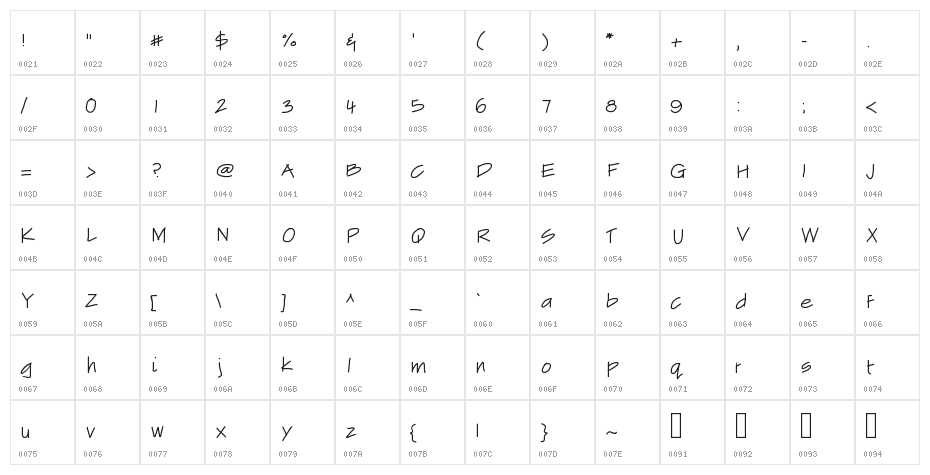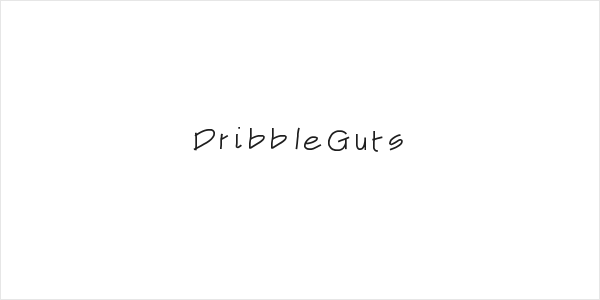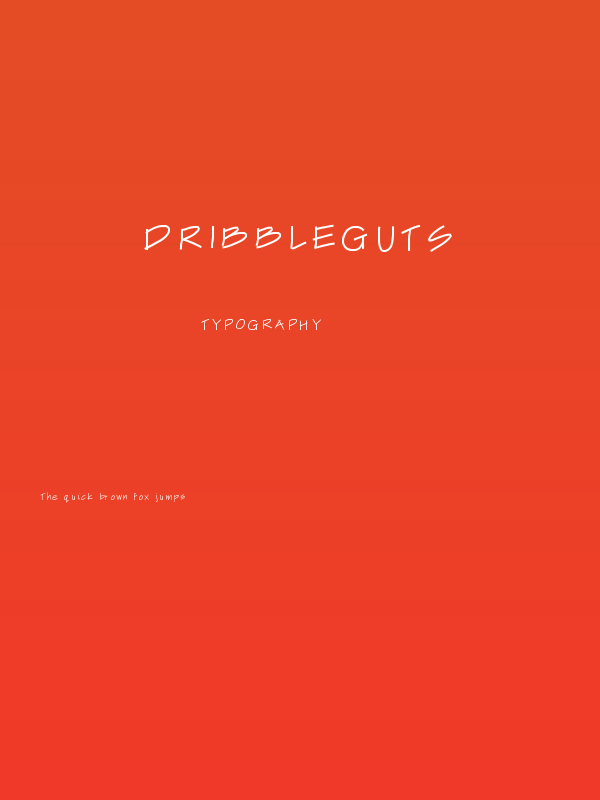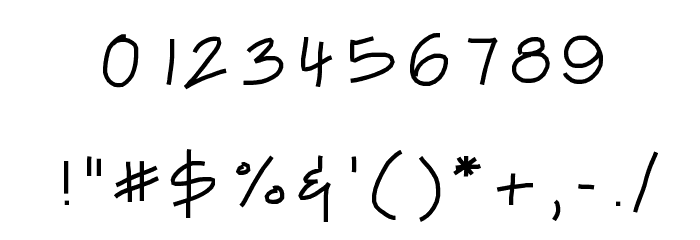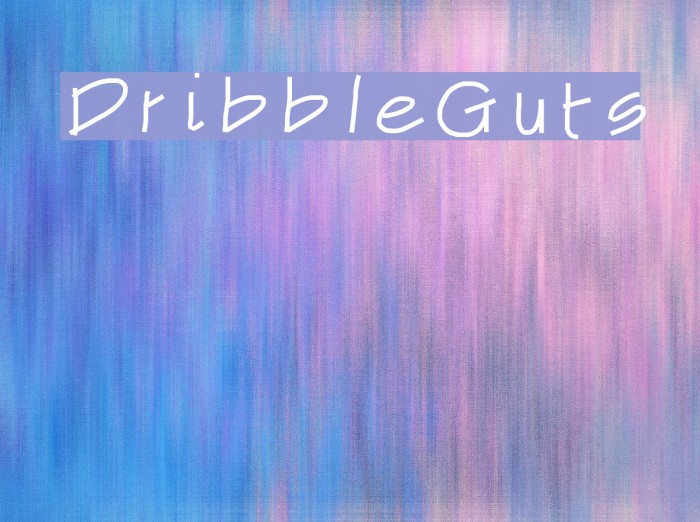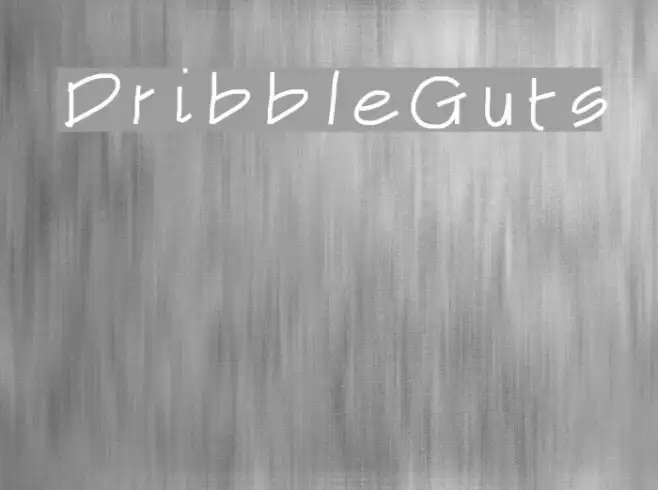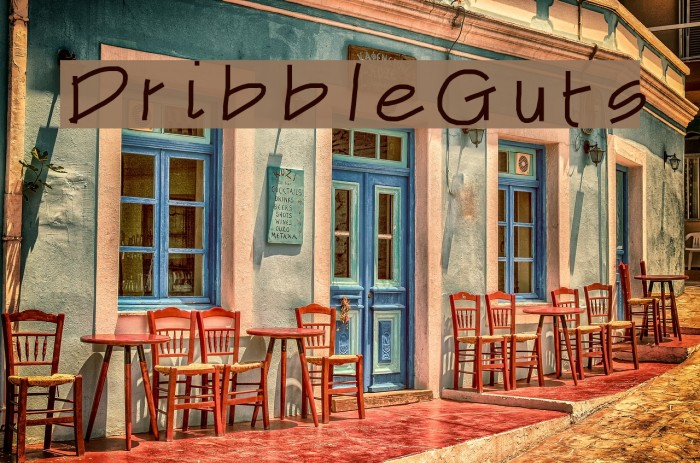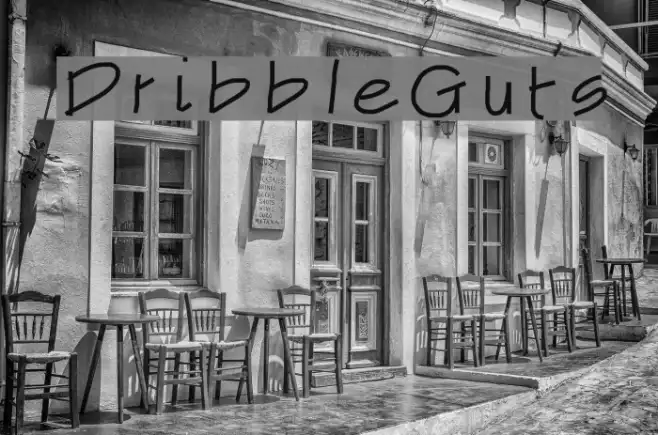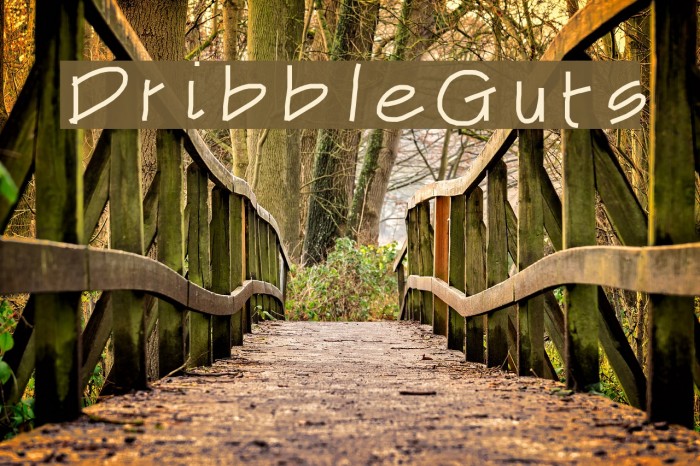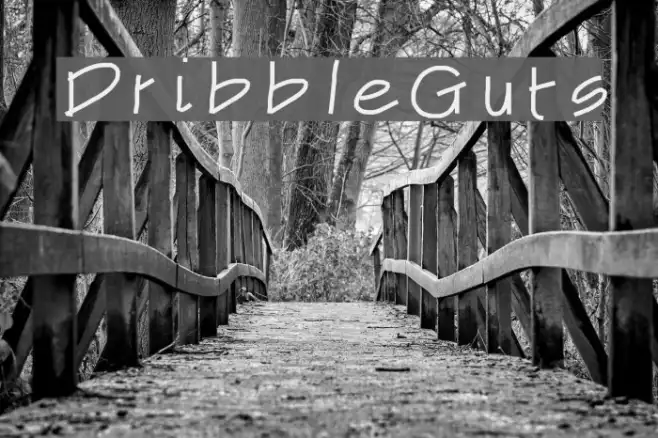
DribbleGuts Font
DribbleGuts Description
This font features a playful and informal handwritten style, characterized by its slightly irregular strokes and casual appearance. The letters have a natural flow, with some variations in height and slant, giving it a personal and approachable feel. The uppercase letters are bold and slightly tilted, while the lowercase letters maintain a consistent baseline with occasional loops and curves. The numerals are clear and legible, matching the overall style of the alphabet. Special characters are included, maintaining the same whimsical and friendly aesthetic. This font is perfect for projects that require a touch of personality and warmth.
DRIBBLEGUTS UPPERCASE
DRIBBLEGUTS LOWERCASE
DRIBBLEGUTS OTHER CHARS